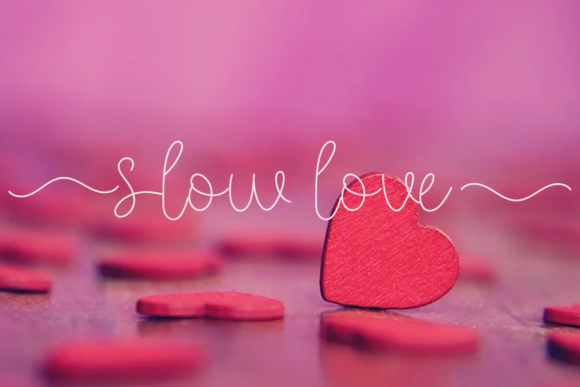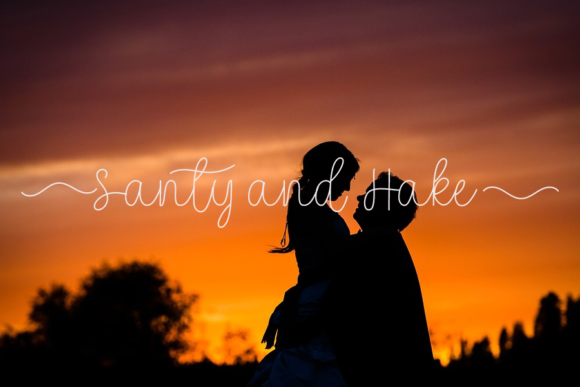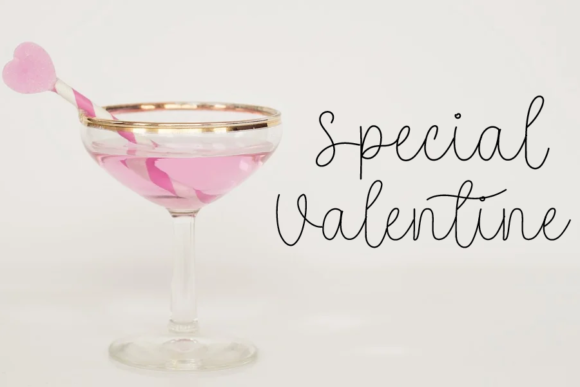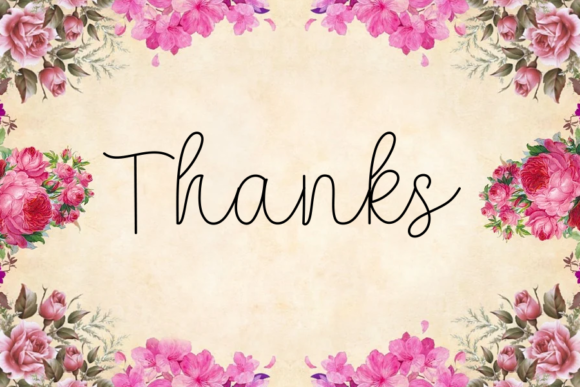
Simple Signature Font
About Simple Signature Font
Simple Signature is a delicate and flowing script font. Fall for its ravishing style and use it to create gorgeous wedding invitations, beautiful stationary art, eye-catching social media posts, and much more!